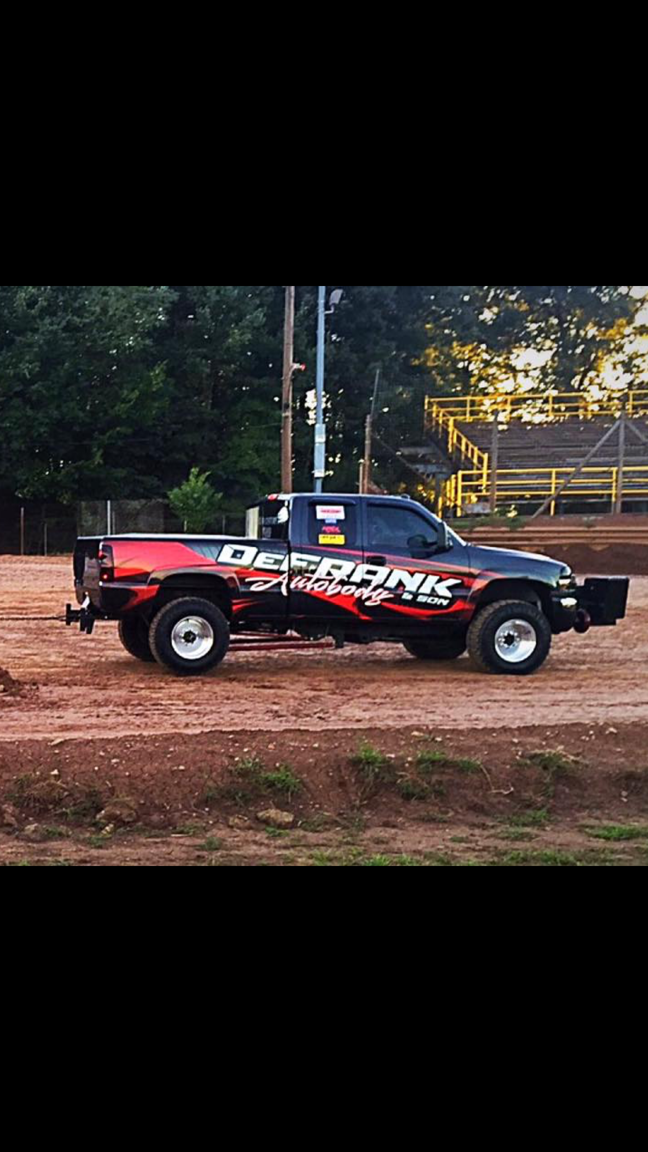
Name That Font?
does anyone have any ideas what fonts are used on this truck?? Making a logo for a customer and they referenced this, that they liked this block font with this script font.
Yeah, they are nice. Can you get them any bigger, so we can see them ??
Mistuki (Autobody)
Mechfire ((DeFRANK) ?